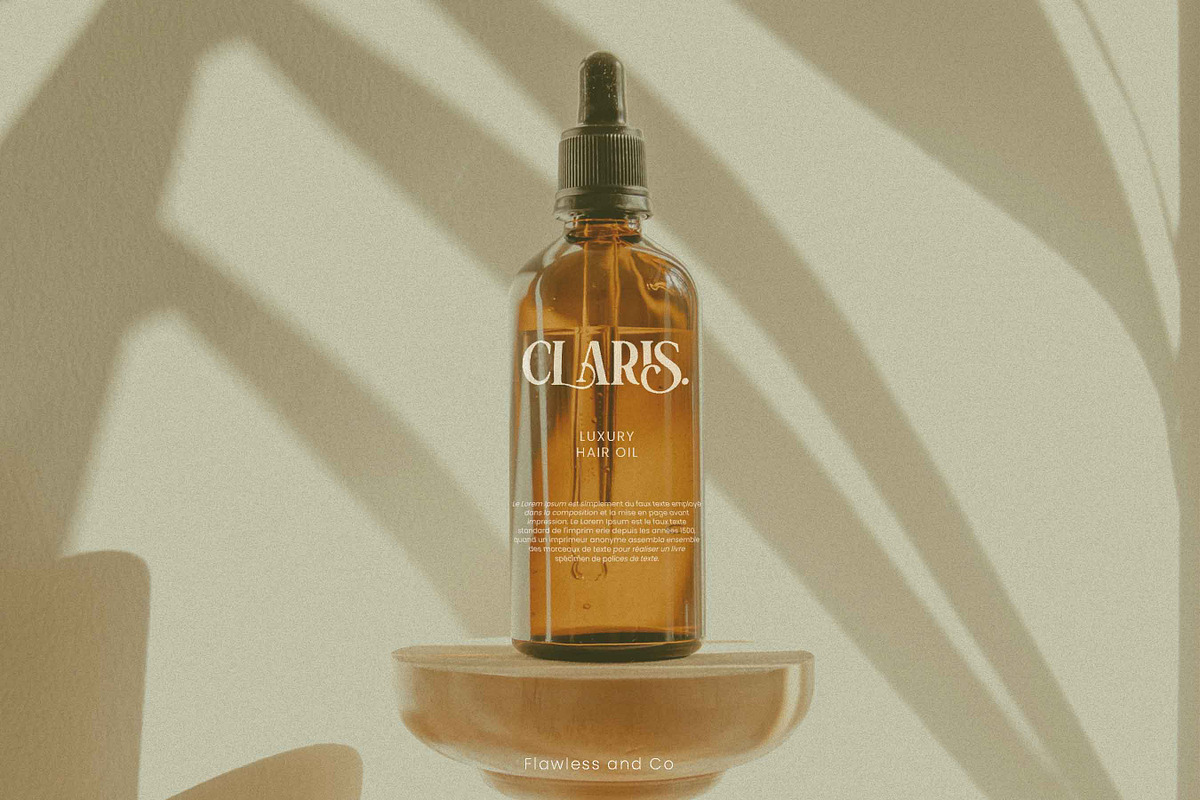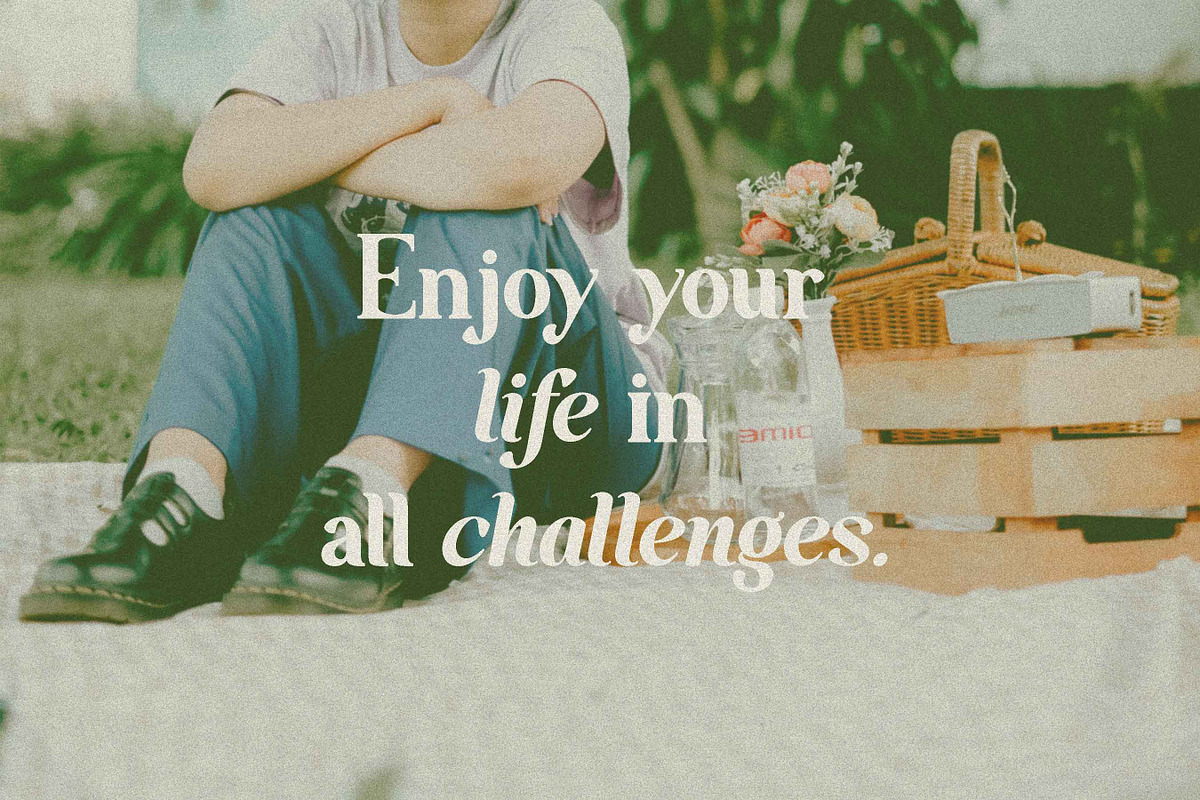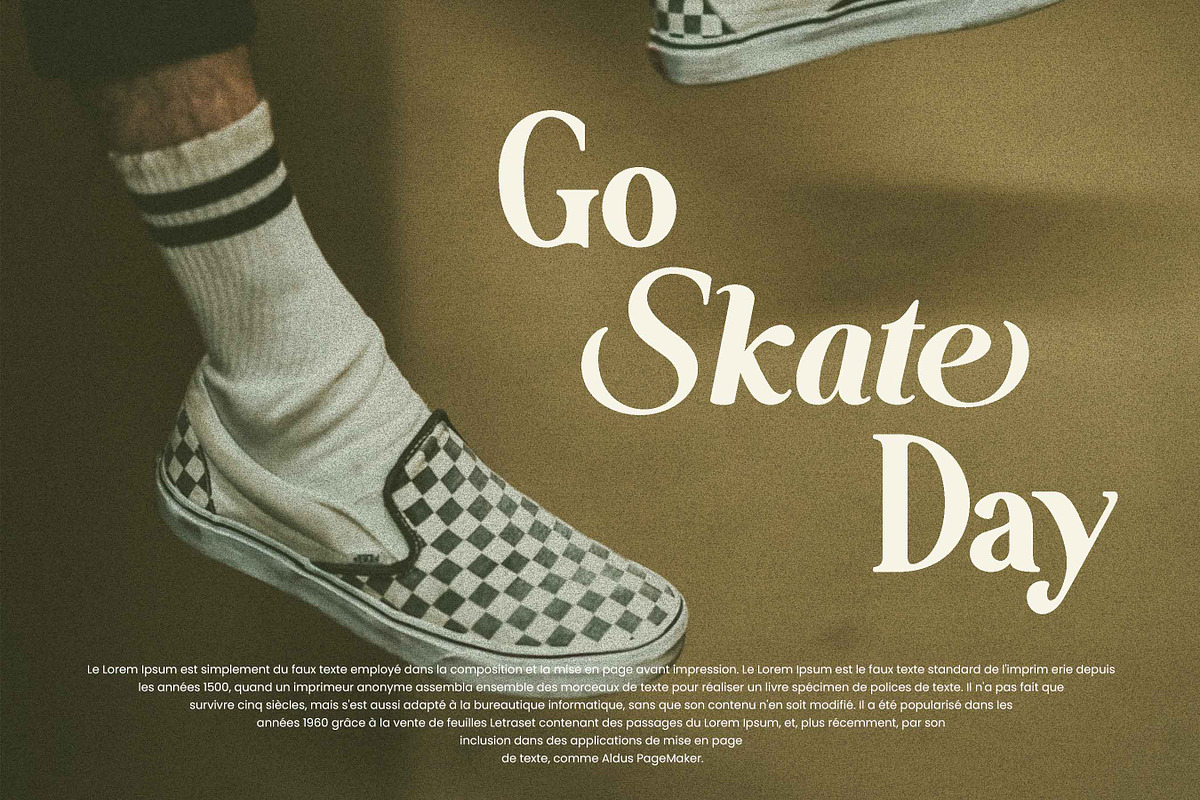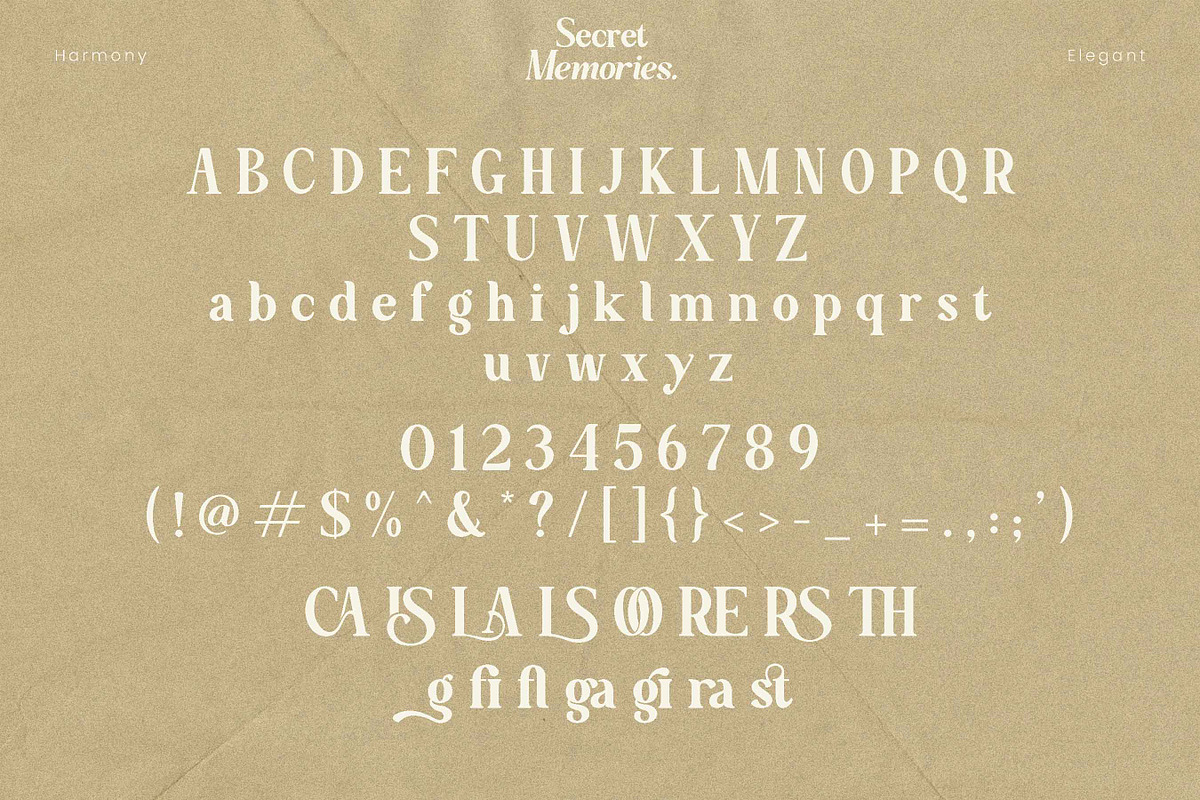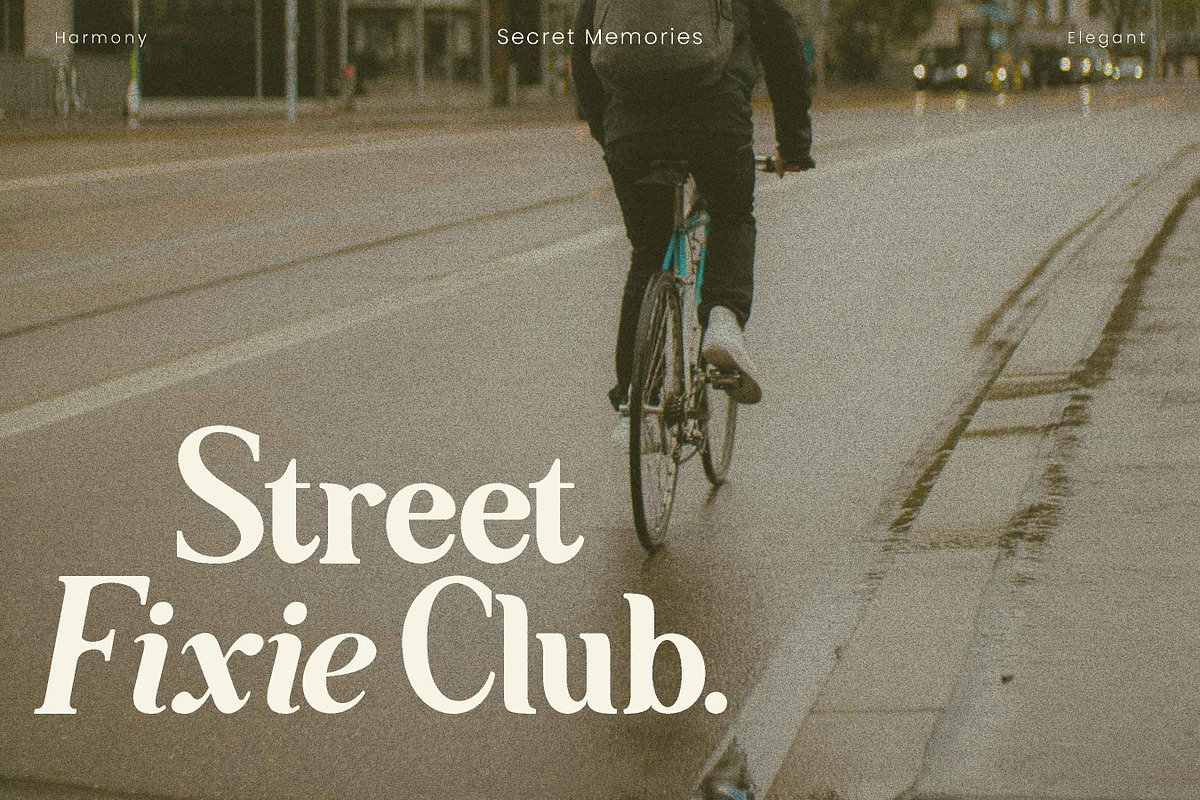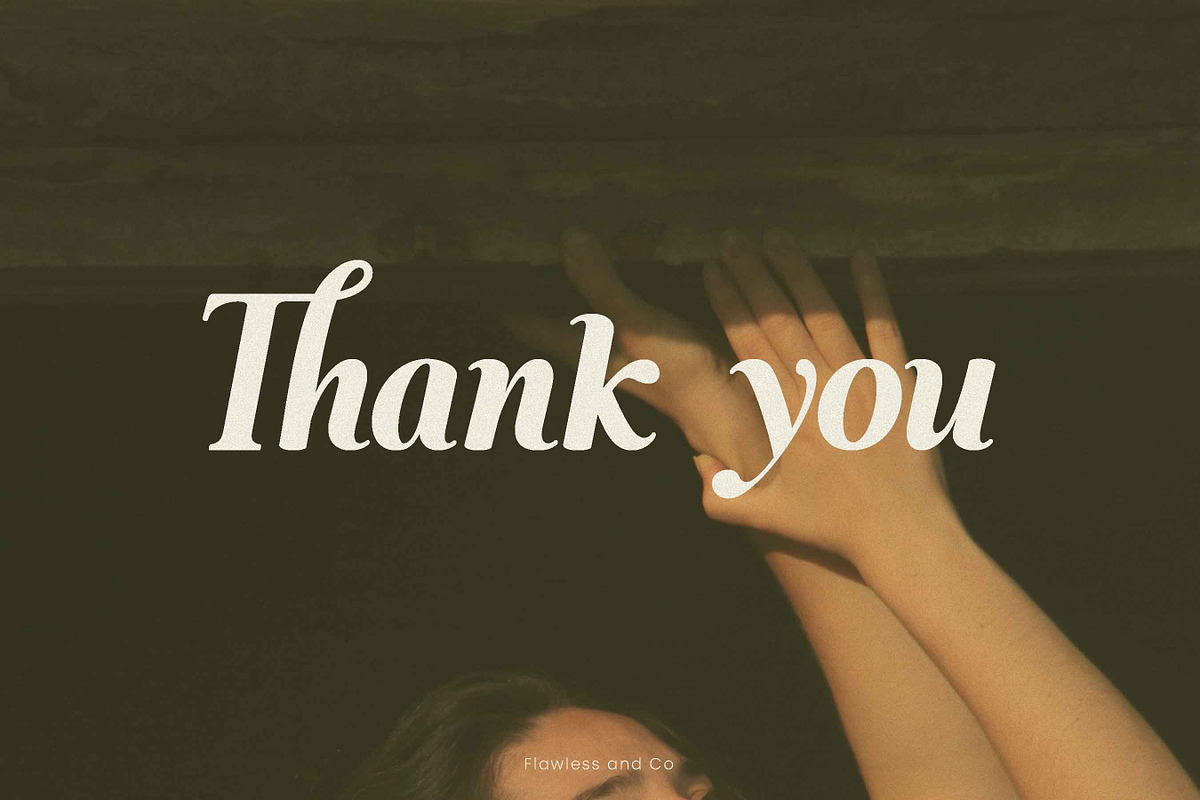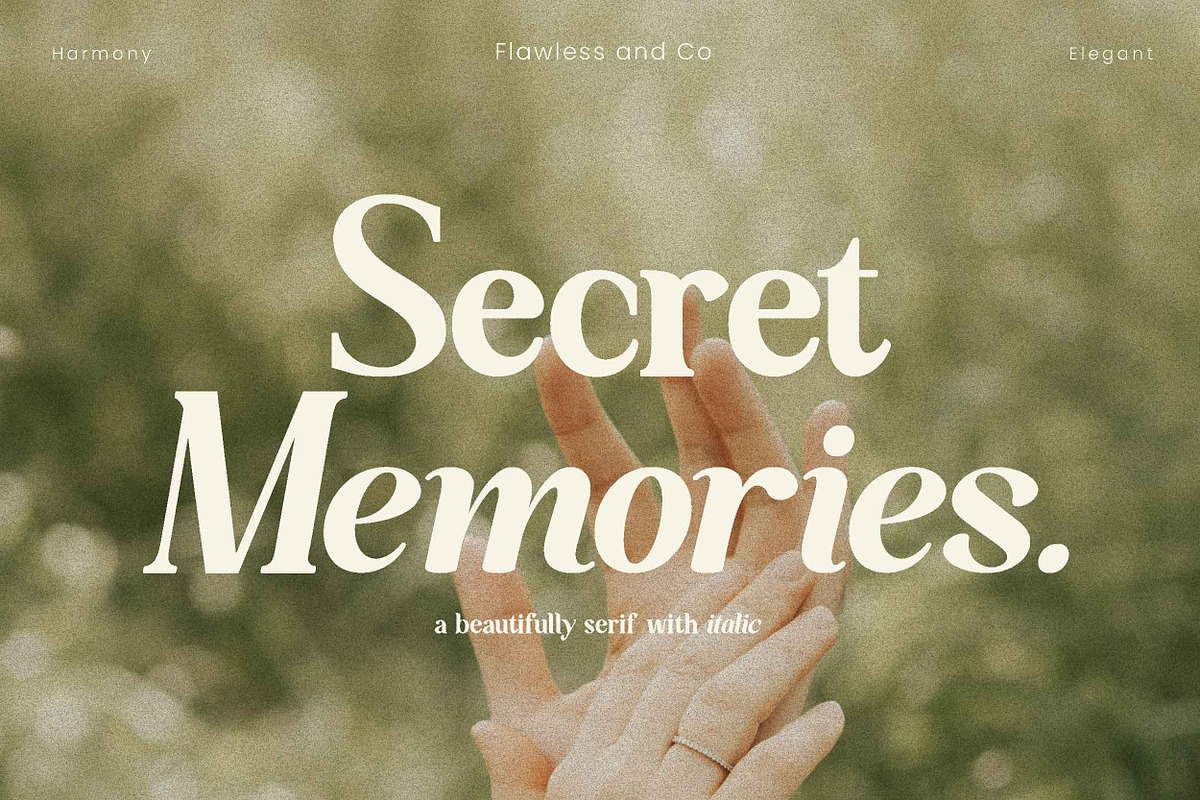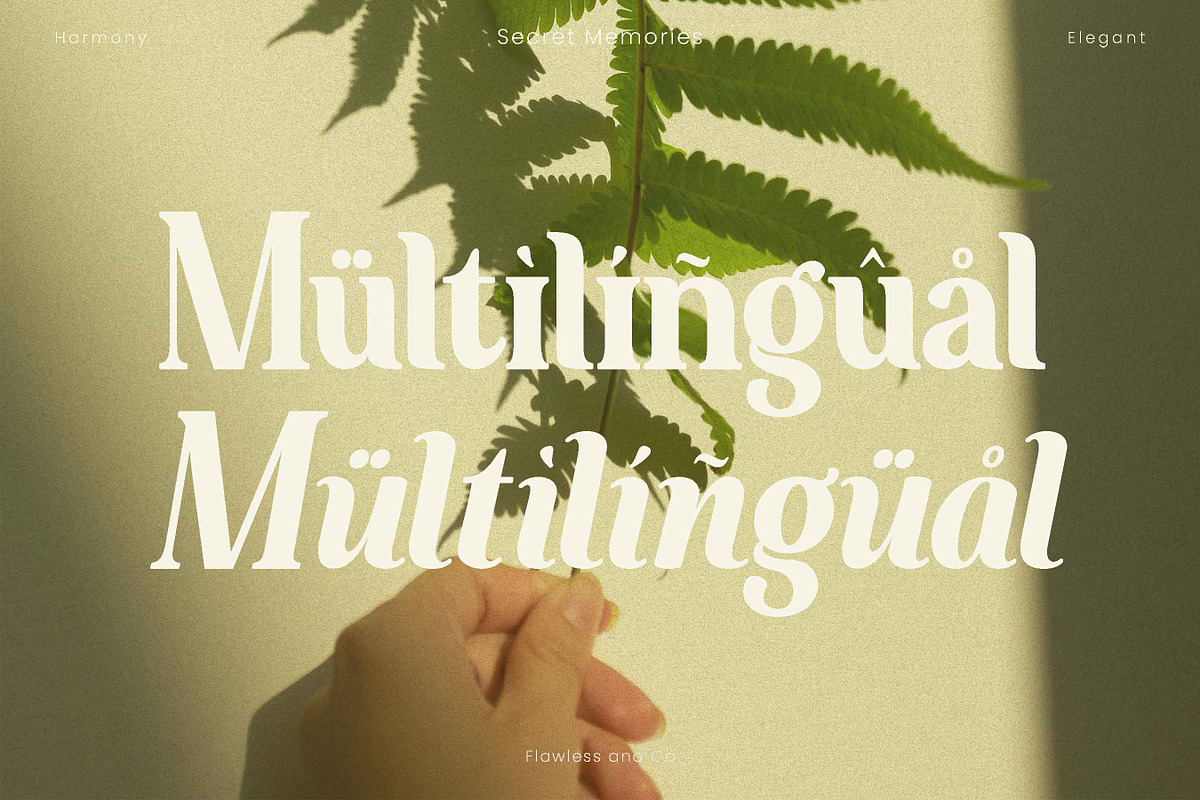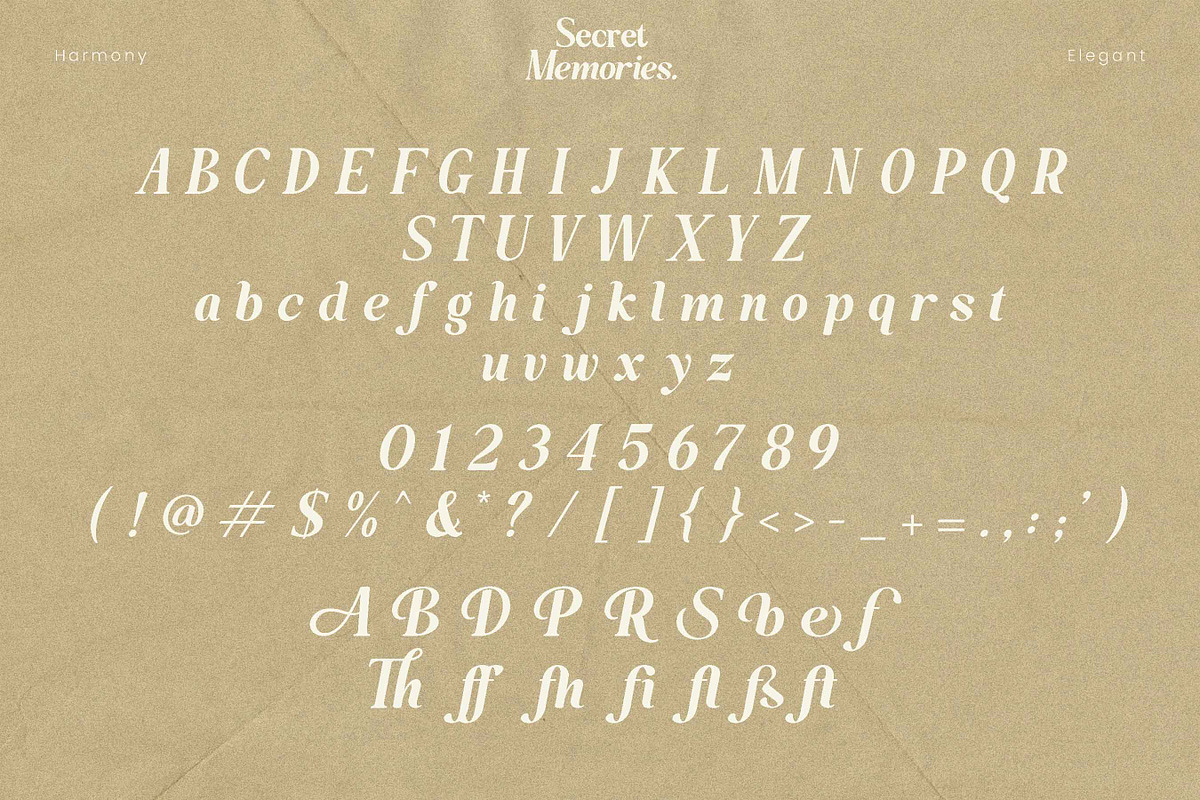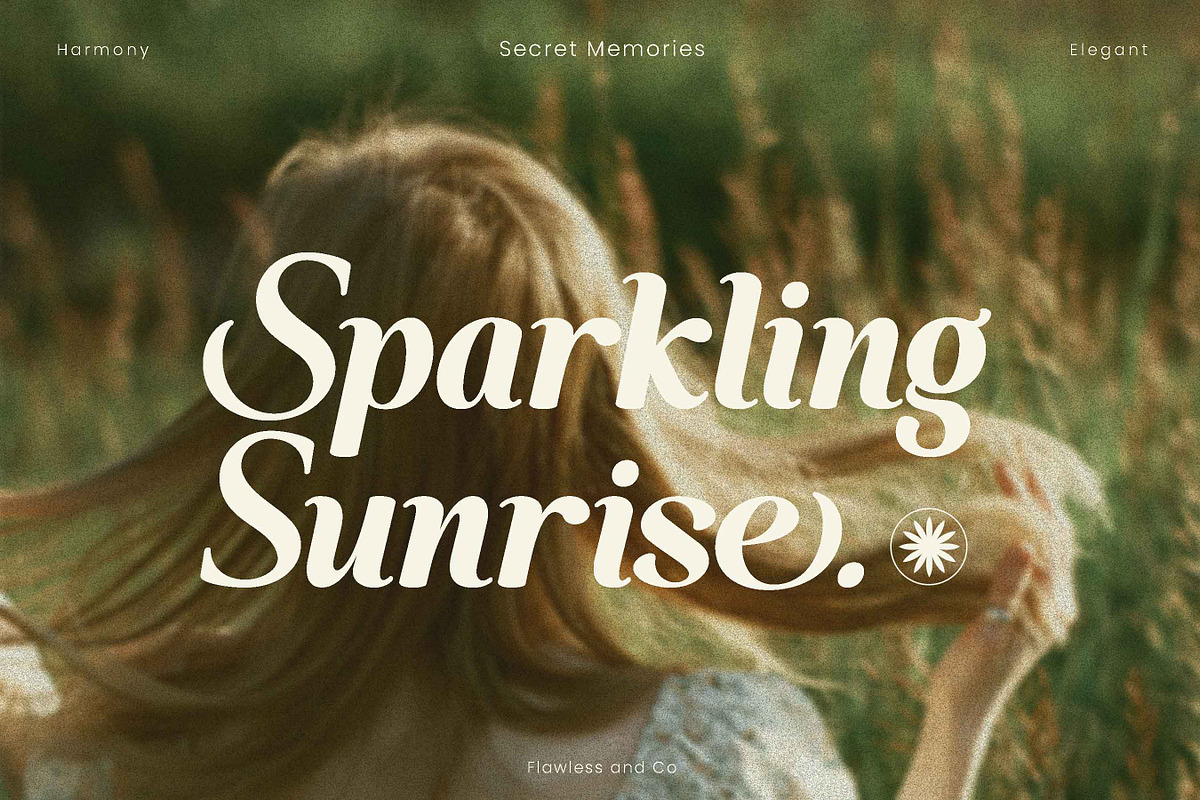
Secret Memories
our latest creation, modern serif with various alternates and ligatures, multilingual support, an updated blend of bohemian style, suitable for branding, business, logos, magazines, and others
Multilingual Uppercase alphabet A-Z Lowercase alphabet a-z Italic alphaber 1-z Alternate Character Numbers 0-9 Some punctuation